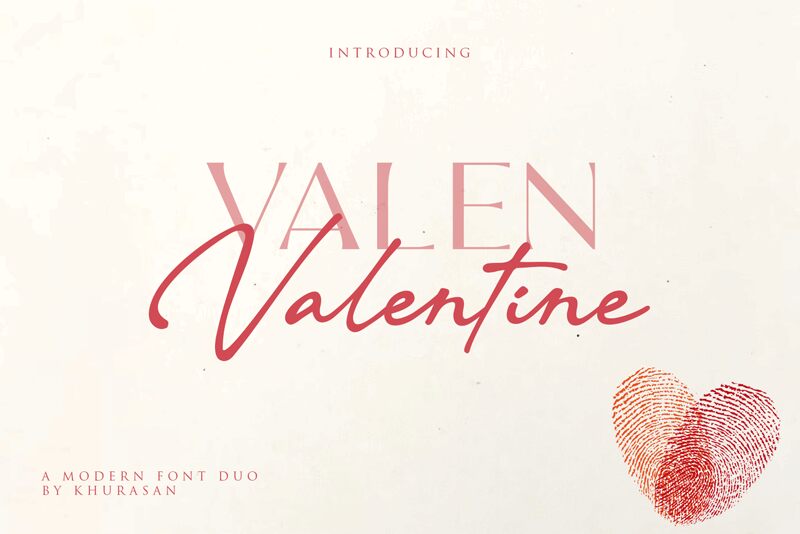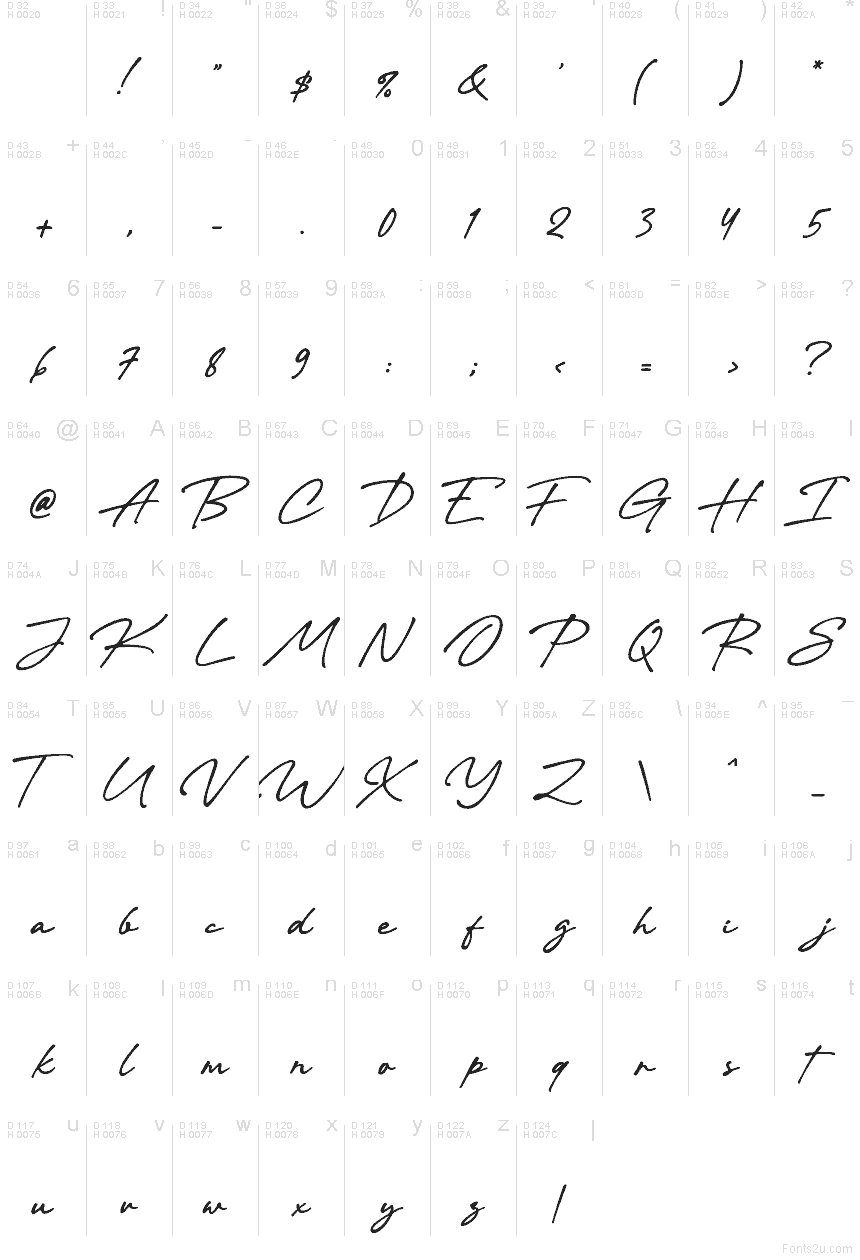
Valen Valentine Script
Valen Valentine Script font by Khurasan is a free handwritten script typeface that feels like it was dashed off with a smooth ink pen on creamy paper. Its letters connect in an easy, looping flow, with slender strokes and just enough wobble to feel human rather than polished to perfection. The result is a soft, romantic rhythm that reads clearly while still carrying that intimate, handwritten charm.
Using Valen Valentine Script, you can bring a warm, personal touch to wedding invitations, save-the-date cards, love notes, branding for boutiques, packaging, and social media quotes. This free font shines on anything that needs a hint of romance or sentiment without becoming sugary or childish. For balance, pair it with a simple sans-serif in smaller text and let Valen Valentine Script take the spotlight in names, headlines, or short phrases.